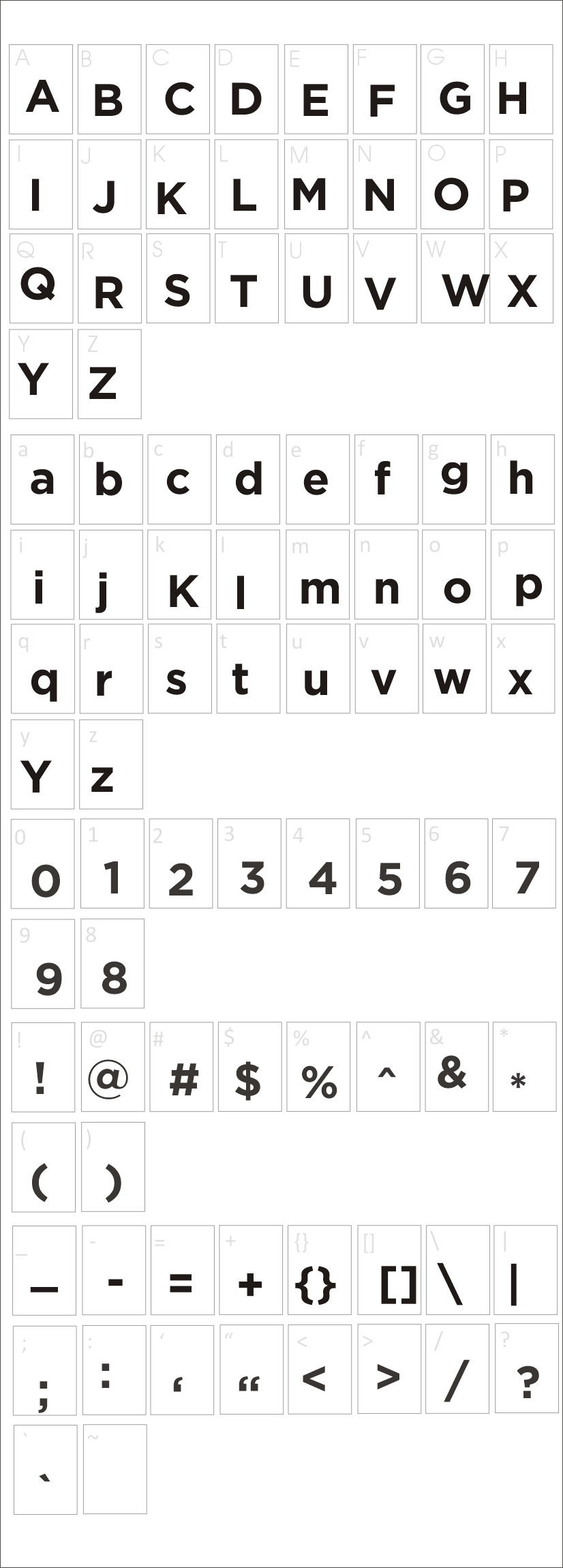
| Font Name: | Gotham Black |
Gotham font is a renowned font family known for its clean lines, geometric shapes, and bold appearance. Inspired by the architecture and signage of New York City. Gotham exudes a sense of modernity, confidence, and urban sophistication.
Key Features of Gotham Font Family:
- Geometric Design: Gotham’s letterforms are based on geometric shapes creating a strong and consistent visual impact.
- Bold and Confident: The font’s assertive weight and confident posture make it ideal for headlines, logos, and other prominent typographic elements.
- Modern and Versatile: Gotham font’s contemporary style and versatility make it suitable for a wide range of projects from branding and advertising to editorial design and web development.
- Multiple Weight Options: The Gotham font family includes various weight options (e.g., Regular, Bold, Ultrabold), allowing you to find the perfect style for your specific needs.
- Consistent Appearance: Gotham’s consistent design across different weights and styles ensures a cohesive and professional look.
Use Cases for Gotham Font Family:
- Branding: Use Gotham for logos, business cards, and other branding materials to create a strong and memorable identity.
- Advertising: Gotham is a popular choice for headlines, billboards, and other advertising campaigns.
- Editorial Design: Incorporate Gotham into magazines, newspapers, and other editorial publications for a modern and impactful look.
- Web Design: Use Gotham for headlines, buttons, and other typographic elements to enhance your website’s visual appeal.
- Corporate Presentations: Gotham’s bold and confident appearance can help make your presentations more impactful.
Gotham Font is a versatile and iconic typeface that can elevate your projects’ visual appeal with its geometric design, bold appearance, and multiple weight options. Gotham is a valuable asset for designers and businesses seeking a modern and impactful font.